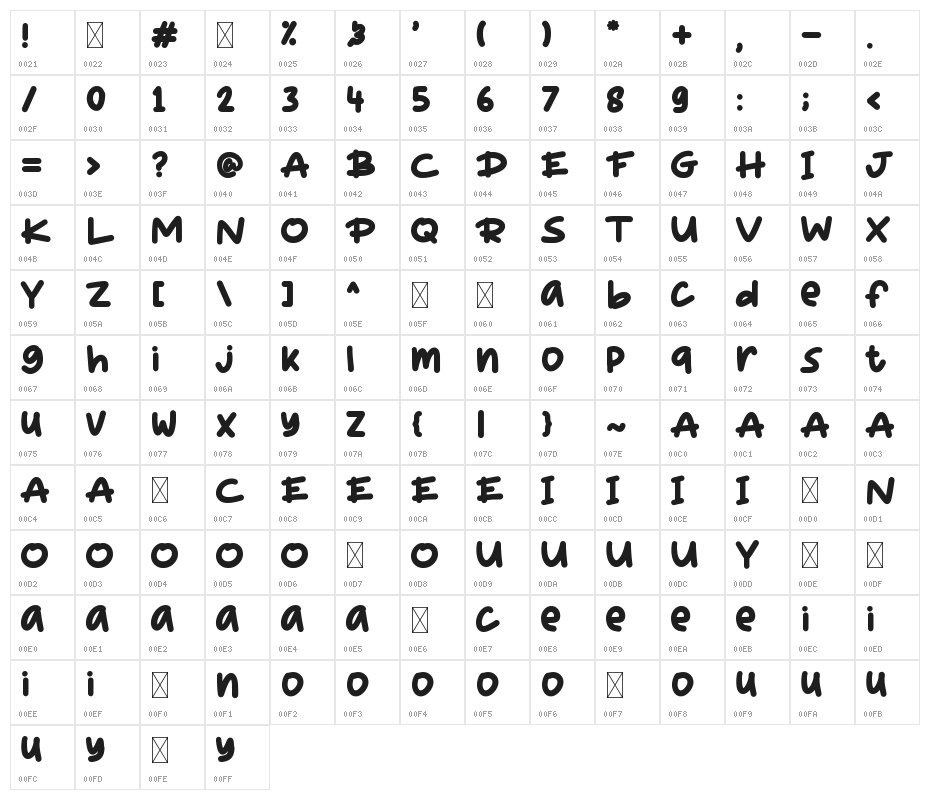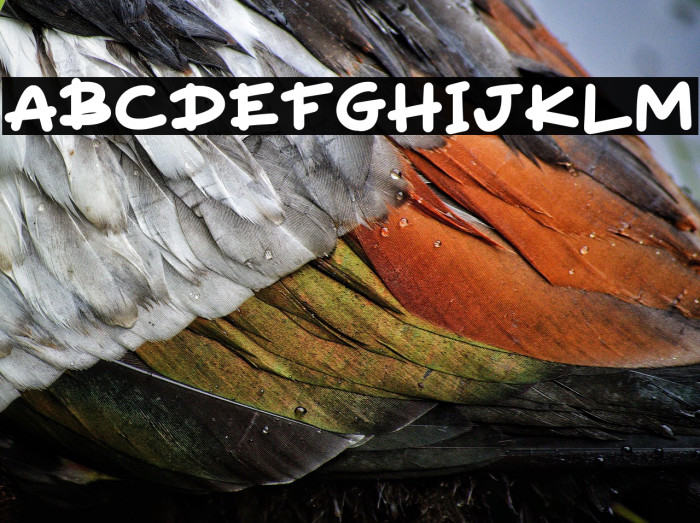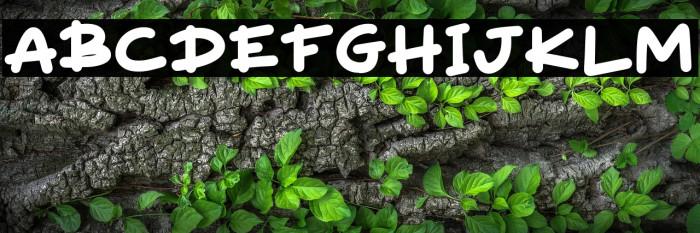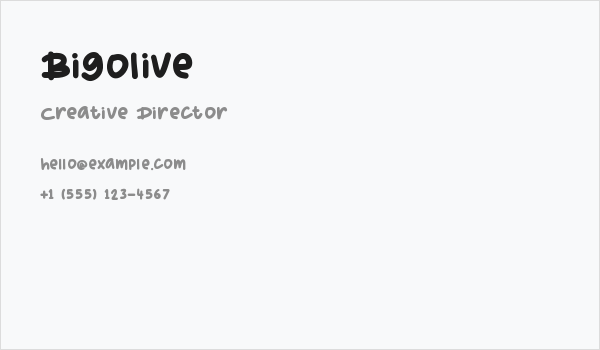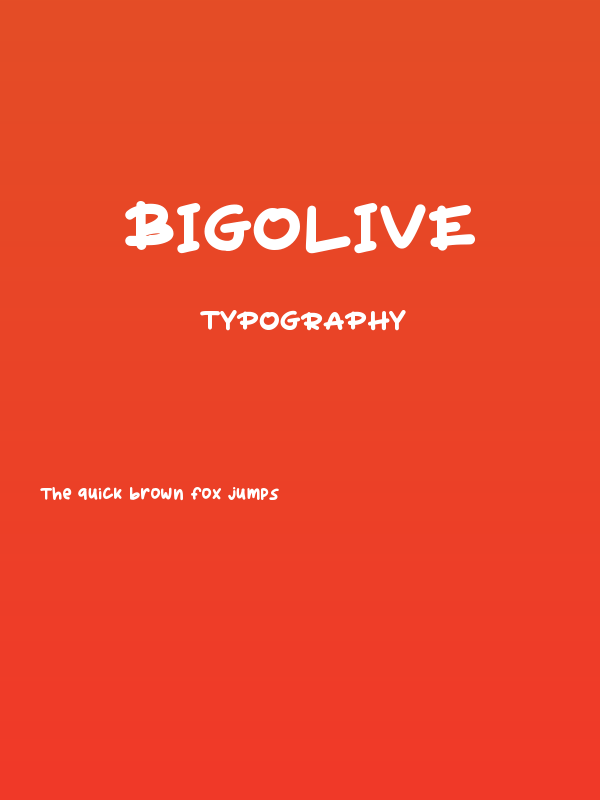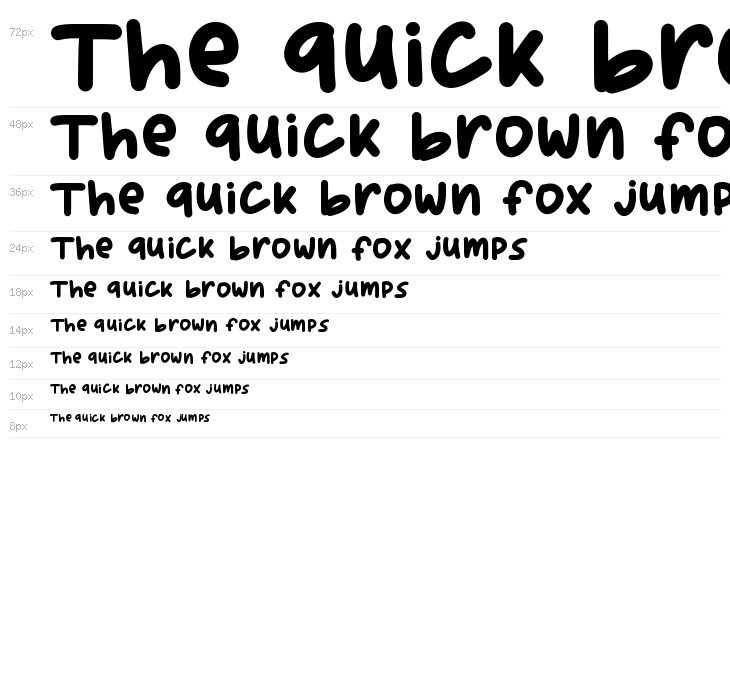
Bigolive Font
Bigolive Description
This playful and bold font features a handwritten style with rounded edges and a casual appearance. The characters are thick and slightly irregular, giving them a friendly and approachable feel. The uppercase and lowercase letters maintain a consistent style, with the lowercase letters slightly smaller but equally bold. Numbers and special characters follow the same design, ensuring uniformity across all elements. The font's overall look is informal and fun, making it suitable for projects that require a personal touch or a sense of whimsy.
| Proposed Projects | Ideal for children's books, greeting cards, playful branding, and social media graphics. |